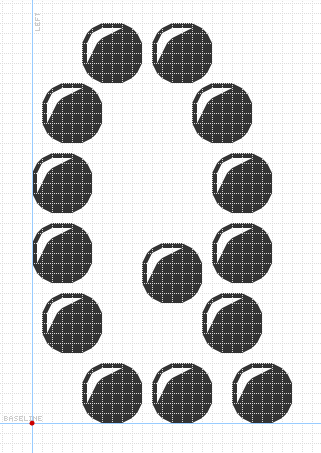
I have no pencil, no paper, just these little tacks and a bulletin board. Oh well. For an interesting effect, try pixel view
It produces a great 3D effect. Your really on a roll these days. 10/10
I love the global design ; the glyphs are very graceful, especially D, V, 6 & 9. I would add a tack at the end of the 2 to improve its balance. Here's a suggestion for the Q :
I was trying to find a good solution for the Q, and that looks exactly like the image in my mind!
I almost feel like I'm stealing your idea, but I think that I'm going to make my Q almost exactly like that one.
very clever very good.
the high resolution gives much freedom for placing the dots. cool
I had quite the time trying to make a good tack graphic, actually.
Really cool idea and execution.
I was inspired by my friend Phillip, who, when bored, wrote the word "TACKY" with tacks. If only I had a photo.